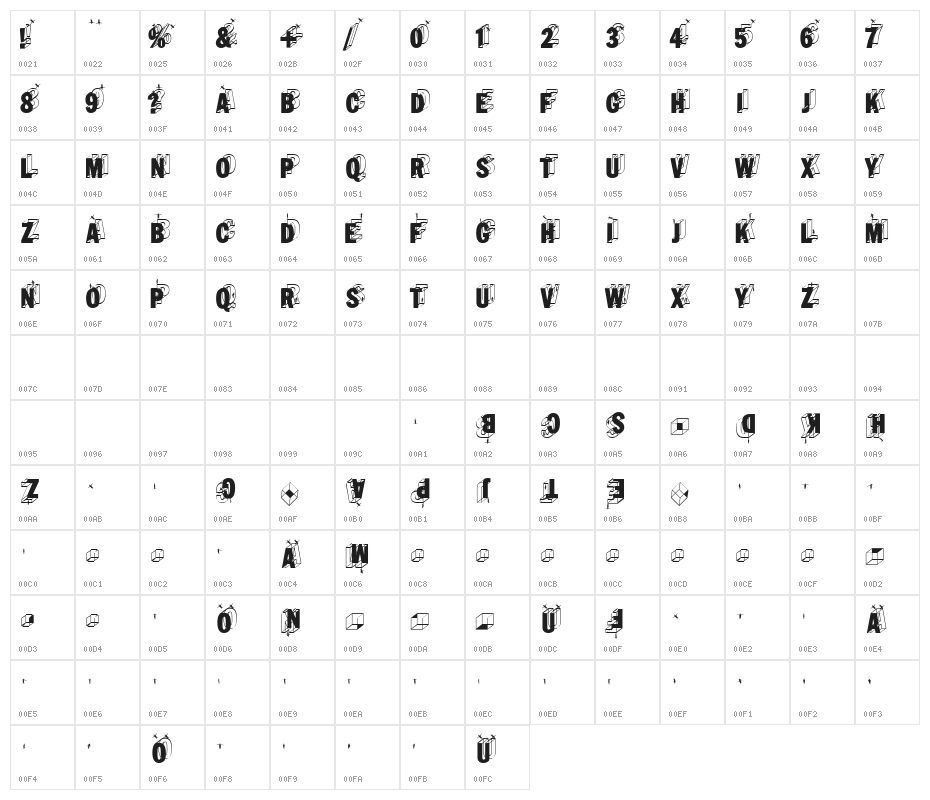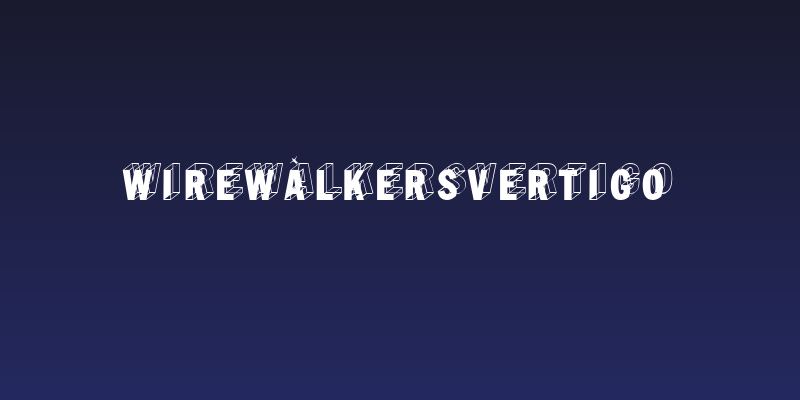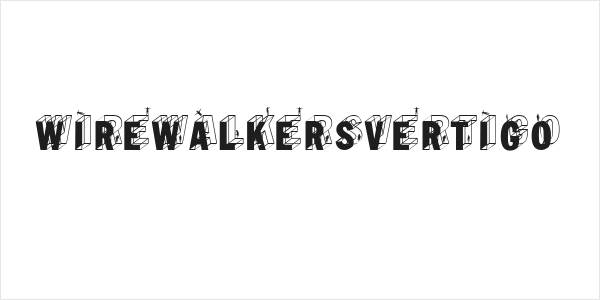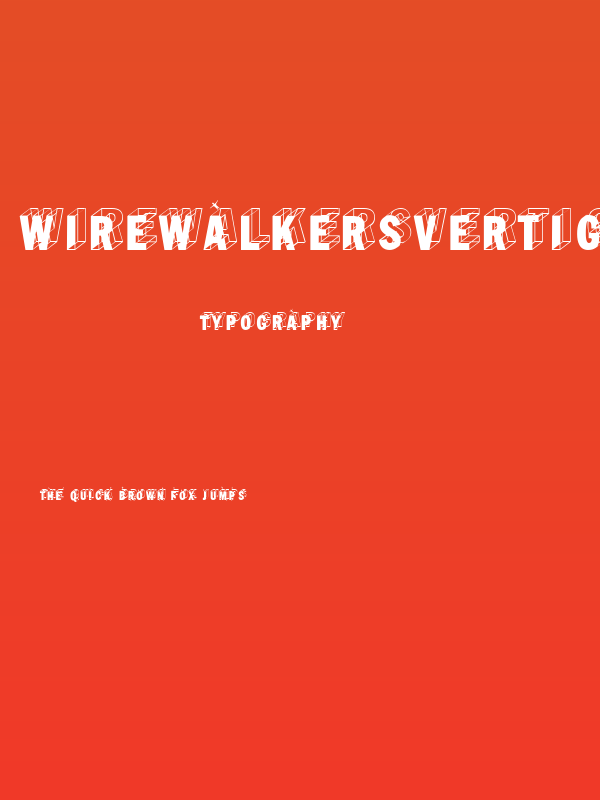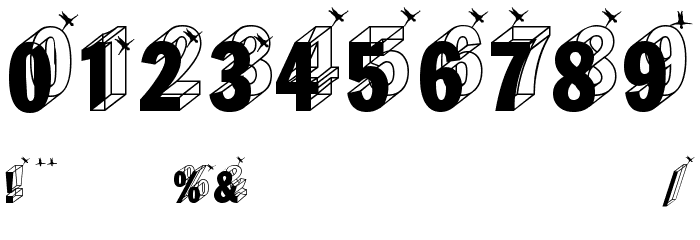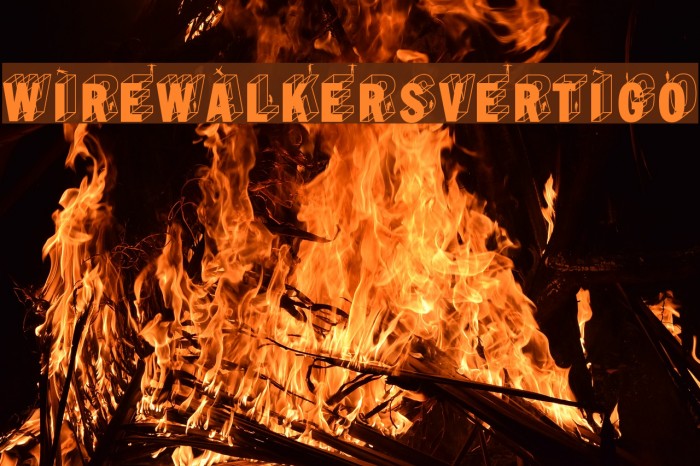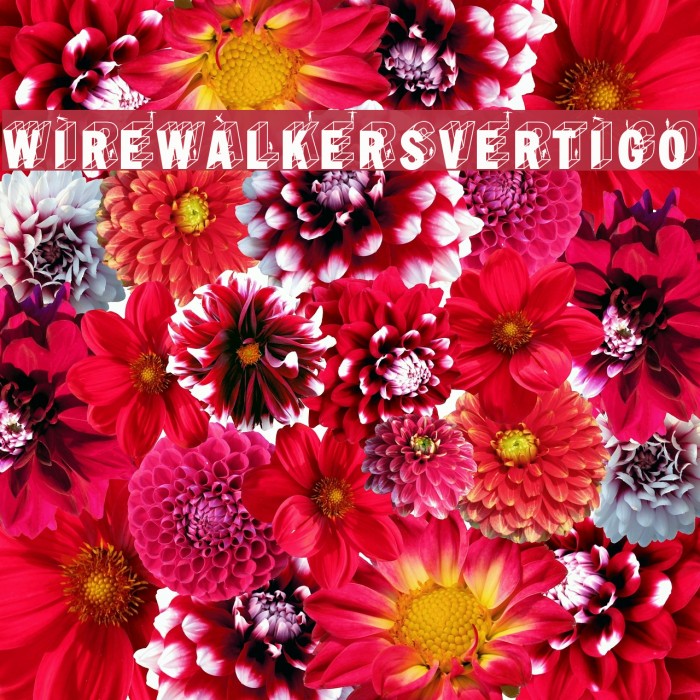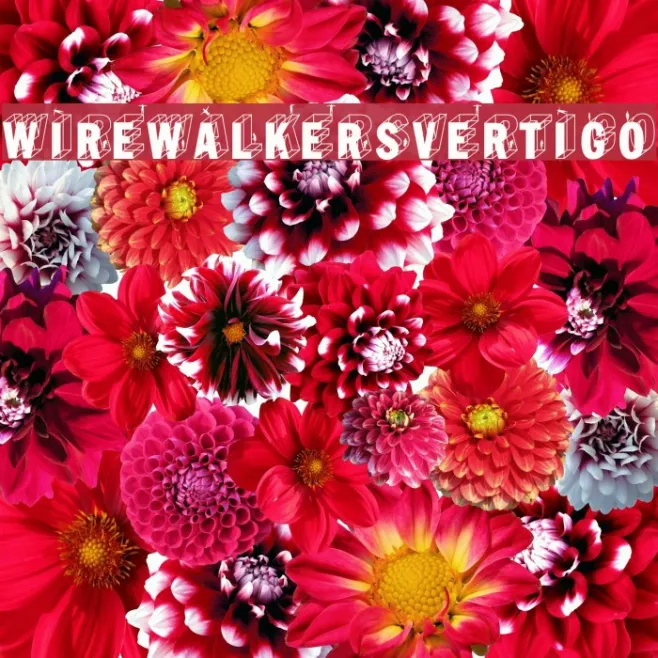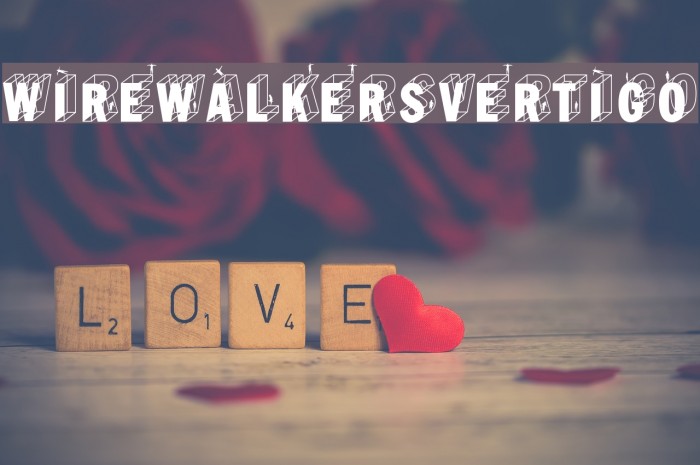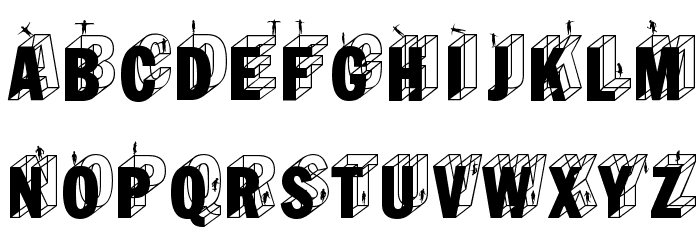
WirewalkersVertigo Font
WirewalkersVertigo Description
This font features a bold, three-dimensional design with a playful and dynamic style. Each character is crafted with a shadow effect that gives it depth and a sense of movement, as if the letters are popping off the page. The font includes uppercase and lowercase letters, numbers, and a selection of special characters. The unique design elements, such as the small figures interacting with the letters, add a whimsical touch, making it ideal for creative and eye-catching projects. The boldness of the characters ensures readability while maintaining a distinct and artistic flair.
| Proposed Projects | Ideal for posters, creative branding, children's books, and any project needing a playful, eye-catching typeface. |